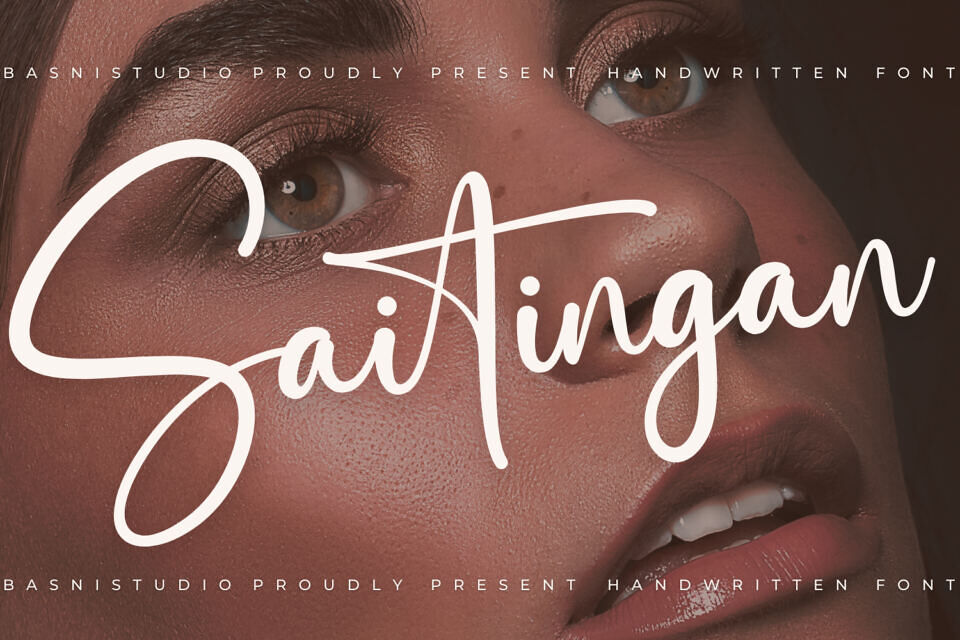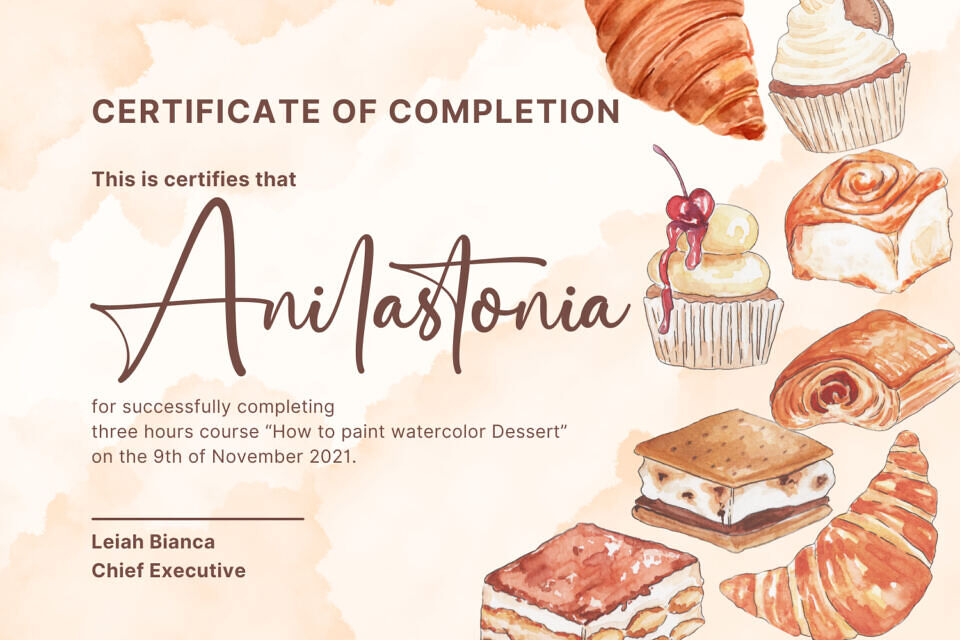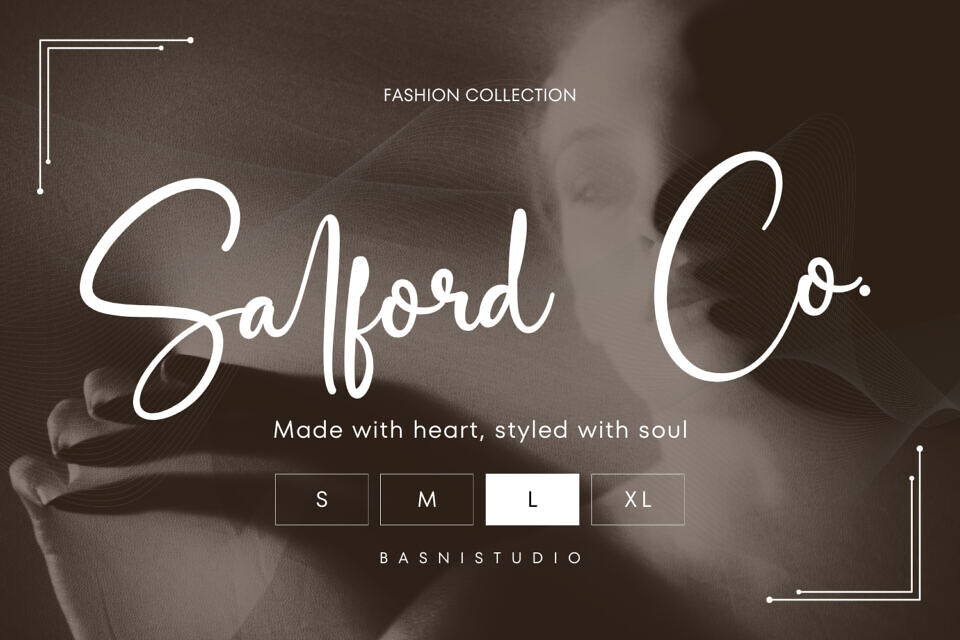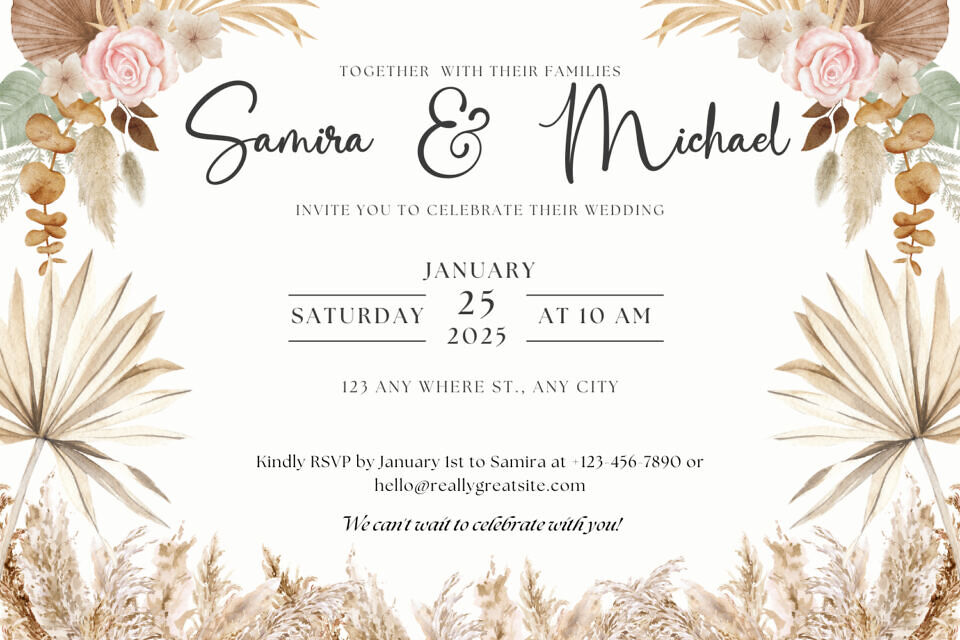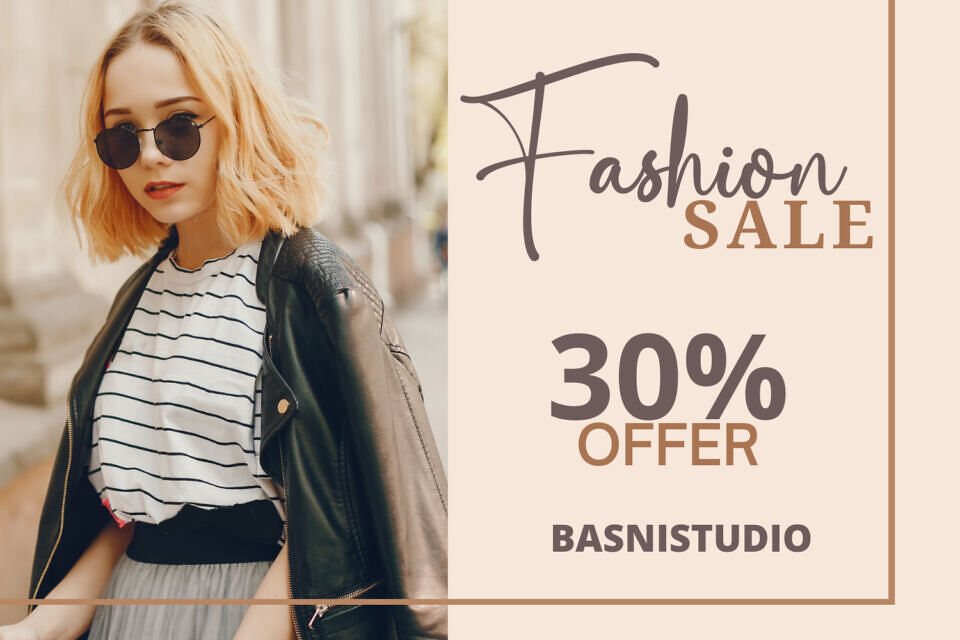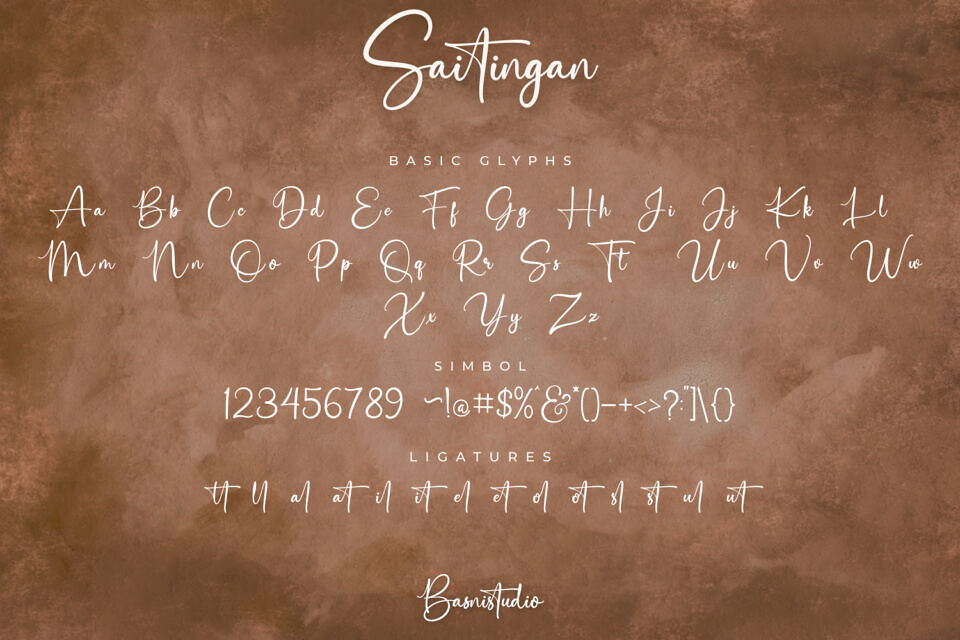
Saitingan Font
Saitingan is a stylish handwritten font that brings elegance and versatility to any project. Designed with authentic pen strokes, it delivers a natural handwritten look ideal for logos, quotes, invitations, and packaging.
Easy to use across all major design software, Saitingan adapts effortlessly to branding, social media graphics, and personal stationery. Whether crafting a distinctive logo or elevating a brand identity, this modern script typeface provides designers with a creative edge, combining sophistication, readability, and timeless handwritten charm.